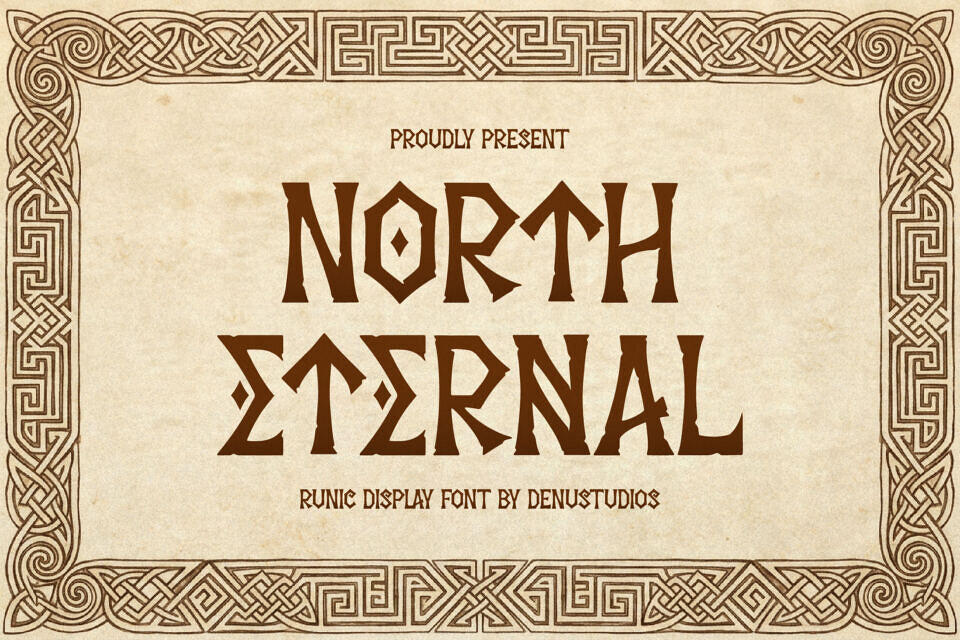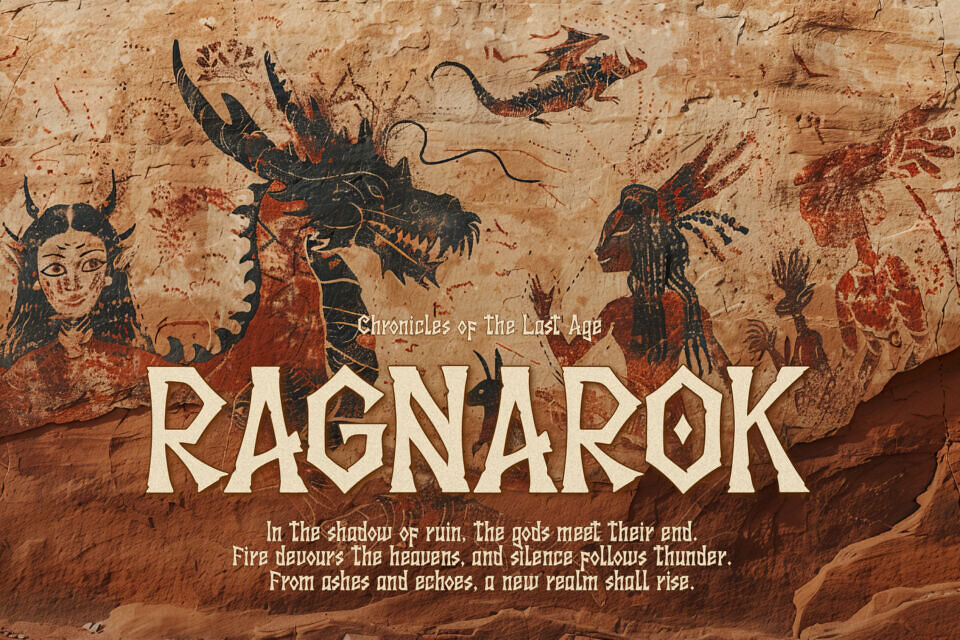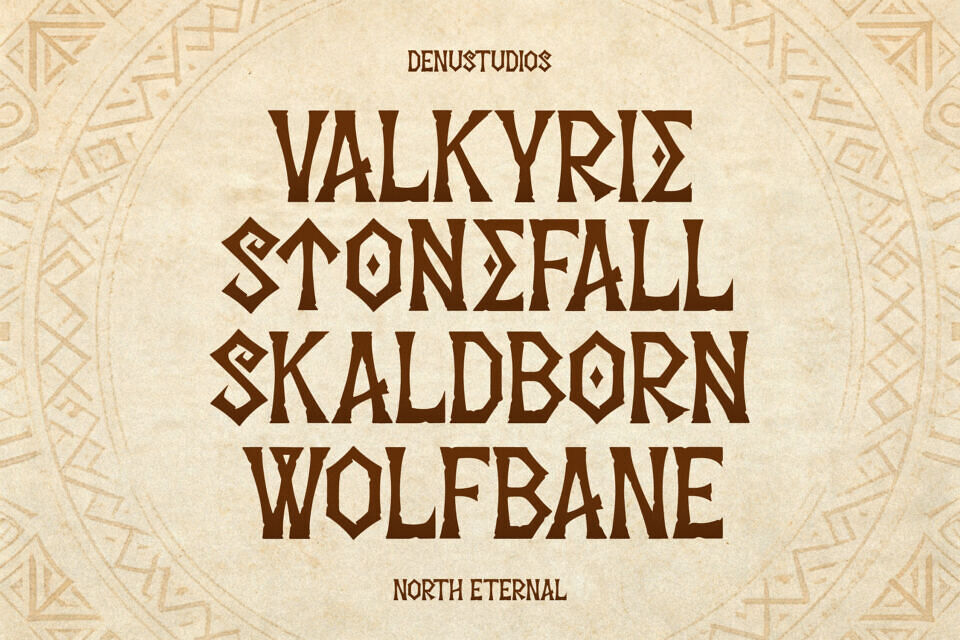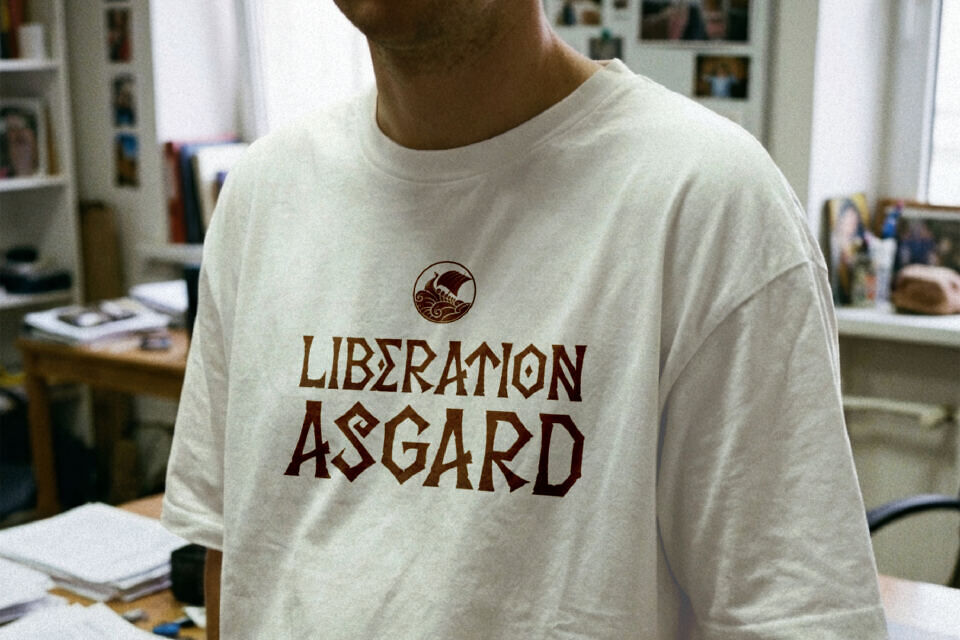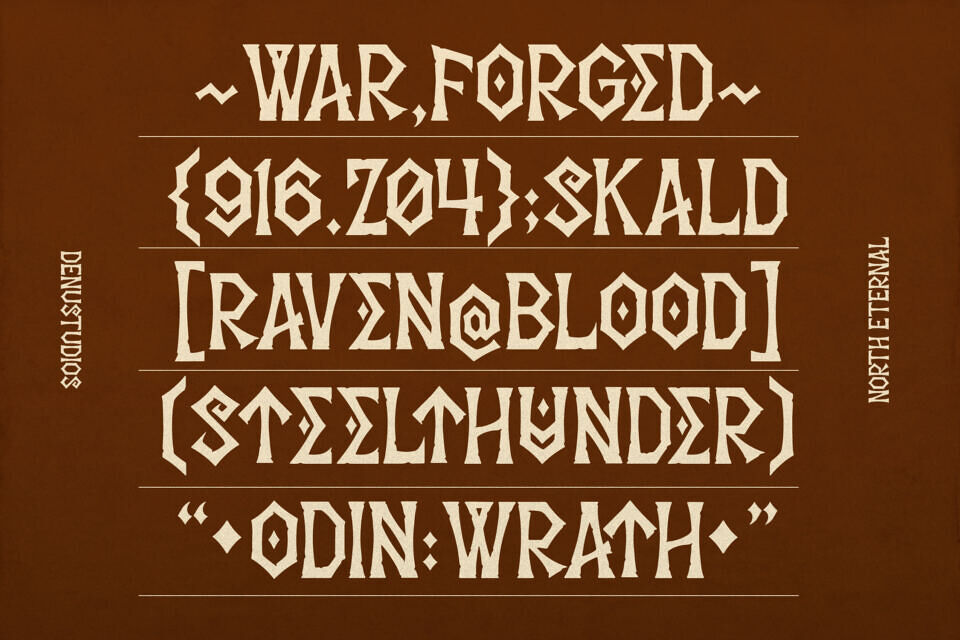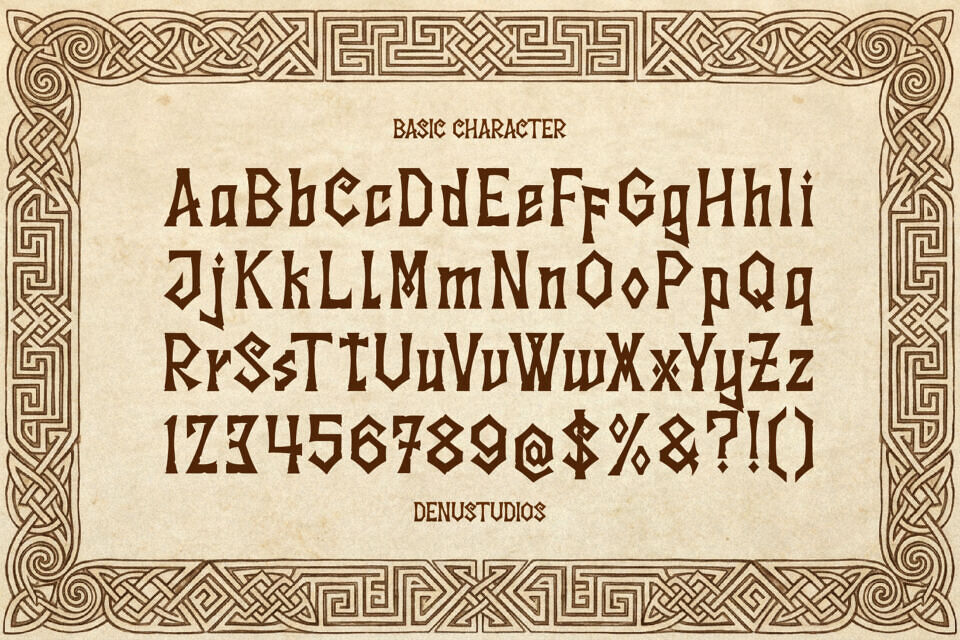
North Eternal Font
Channel the power of the ancient North with North Eternal, a mystical display font that captures a “heroic-and-ancestral” soul. This typeface features sharp, angular letterforms inspired by traditional Norse runes and Viking inscriptions.
With its unique geometric silhouettes and rhythmic stone-carved aesthetic, North Eternal is the premier choice for independent fantasy gaming branding, historical fiction book covers, Nordic-themed apparel, and high-impact “mythology-revival” social media headers.